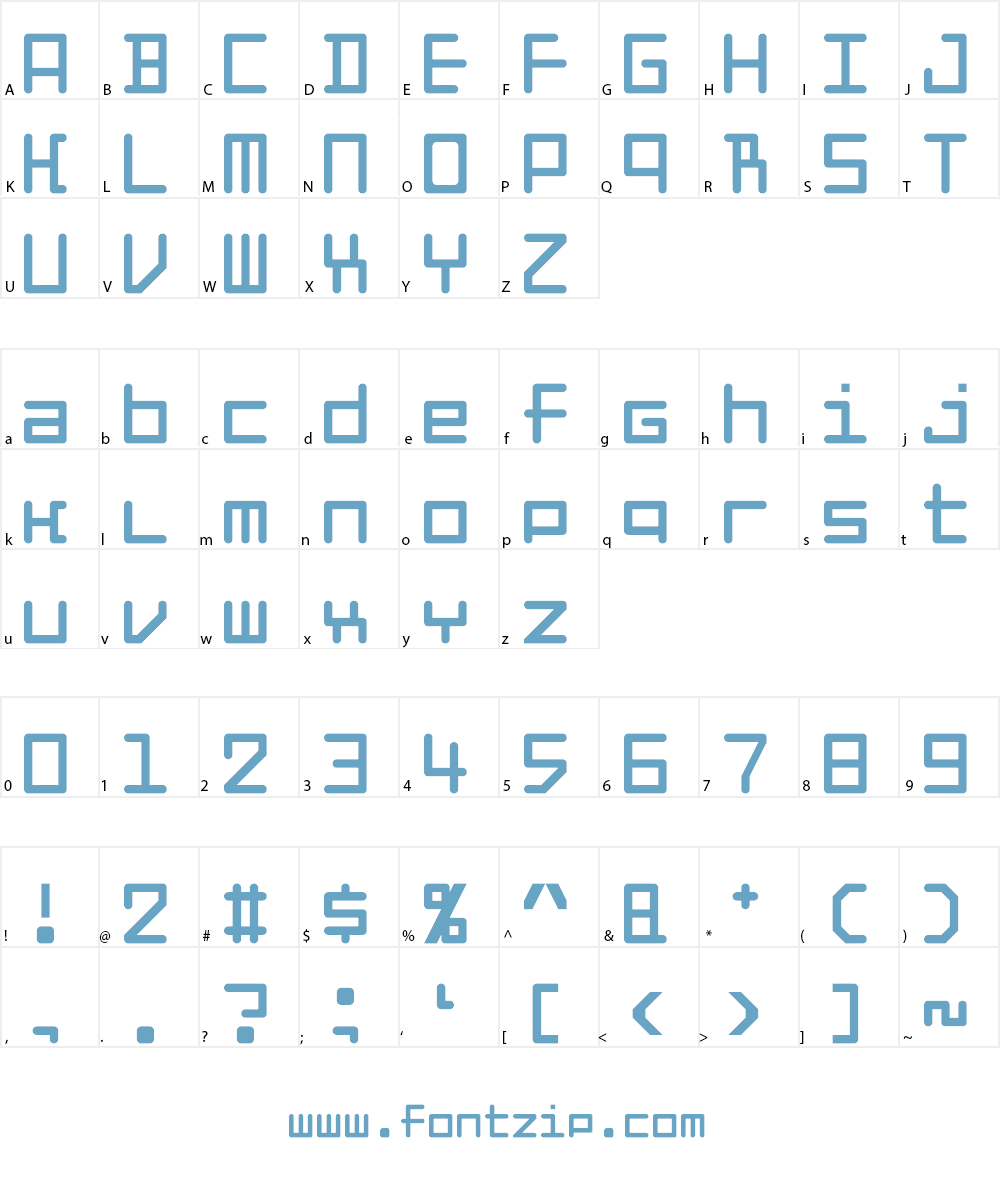
What inspired me to make this font was to experiment with slopes regarding matching of width of slope line to match the horizontal and vertical block sequences.